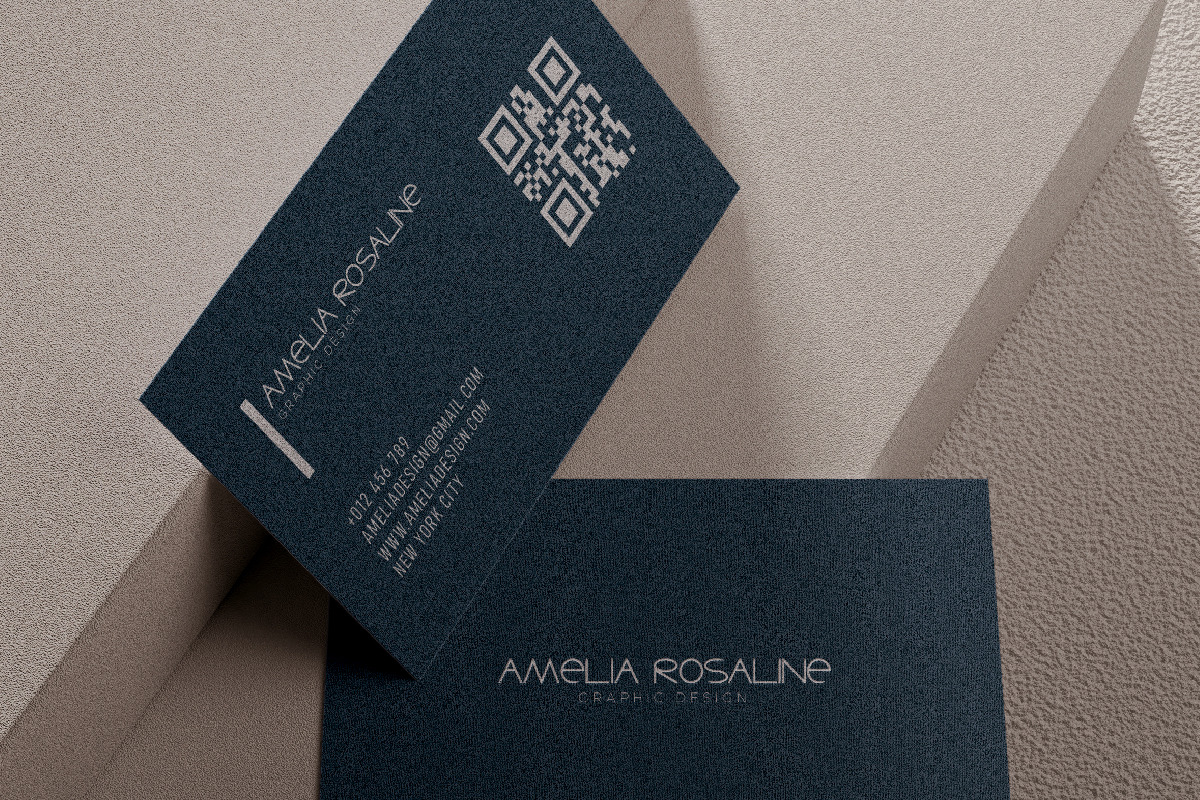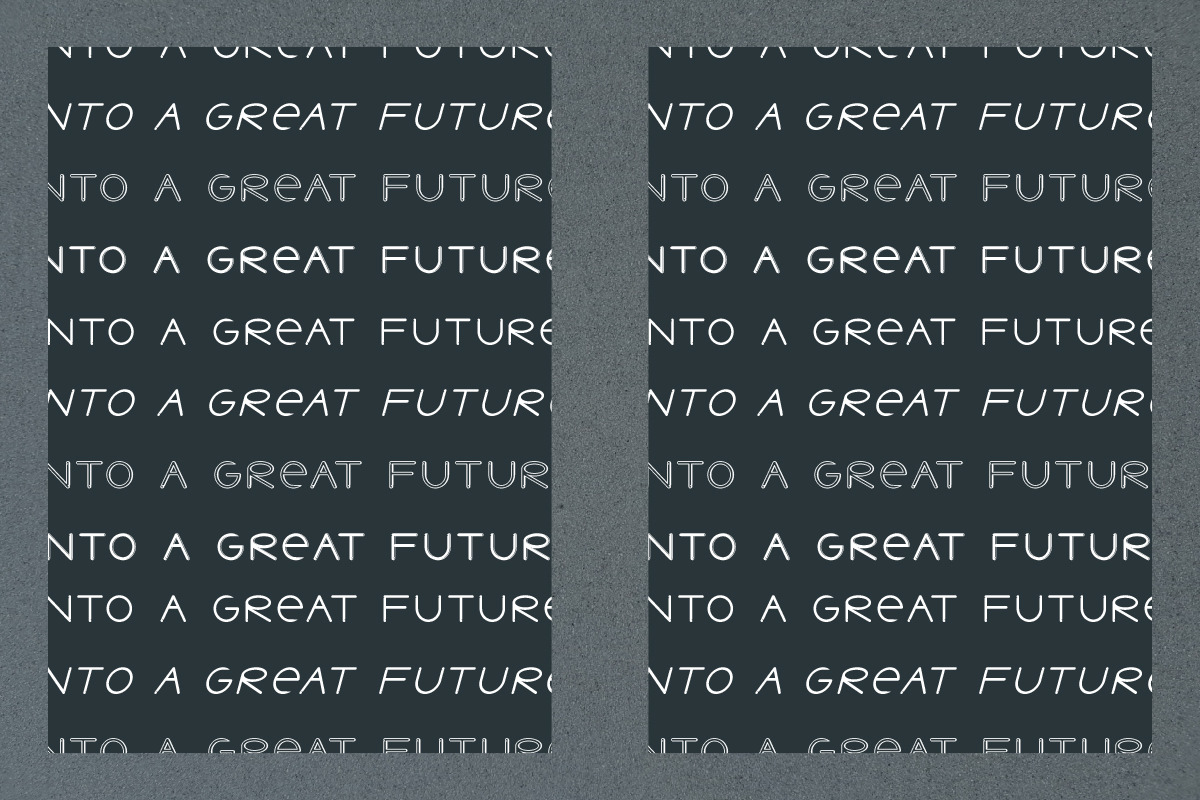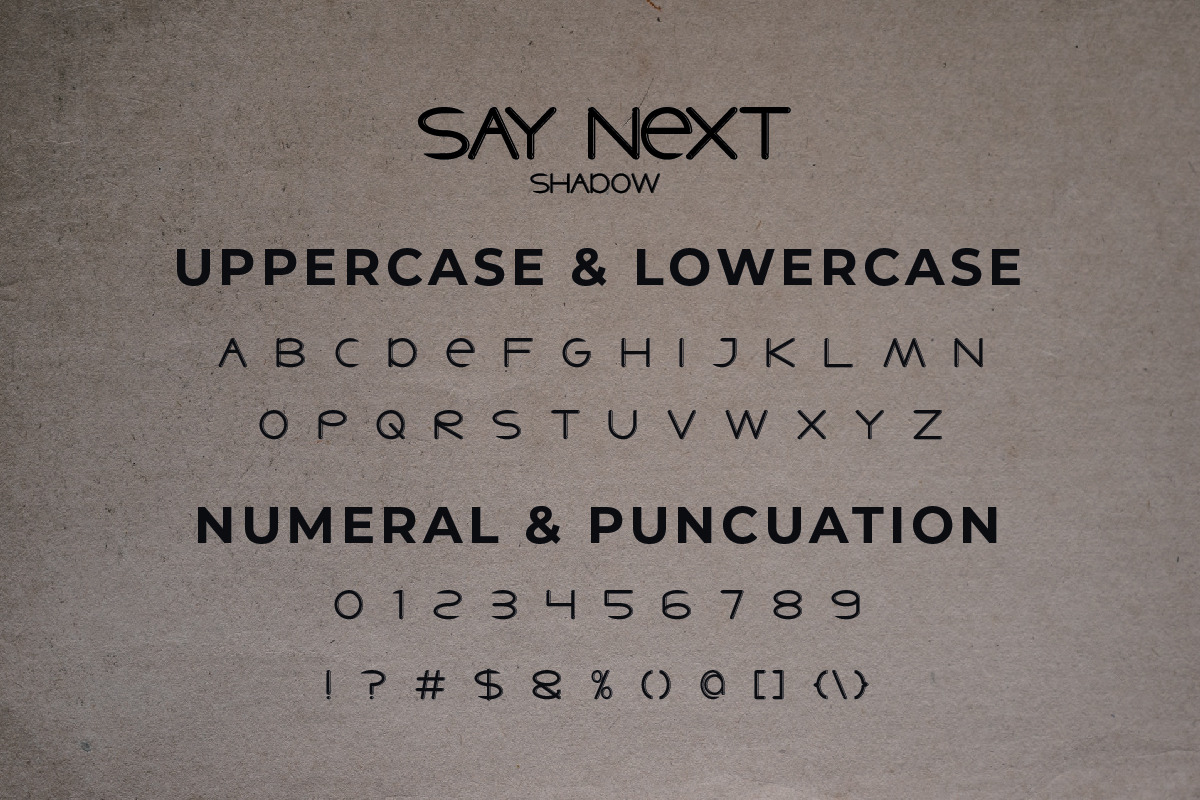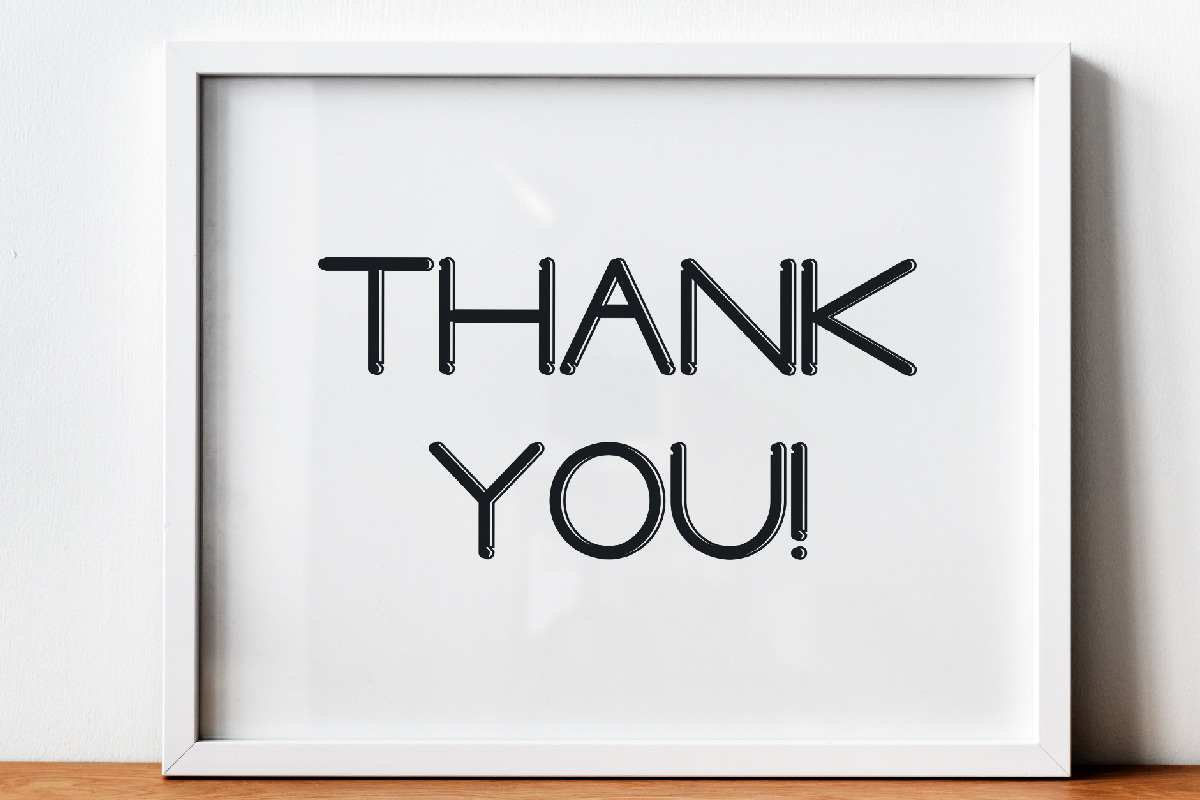
Say Next Sans Serif Font
Say Next Font is a display decorative sans serif font family, inspired from move on movement in modern life designed by RaisProject. The industries for this font is Startup, Automotive, Apps, Cosmetic, Beauty, Technology, Game, Magazine, Music, Sport etc. In total, Say Next has four different styles : Regular, Italic, outline and Shadow